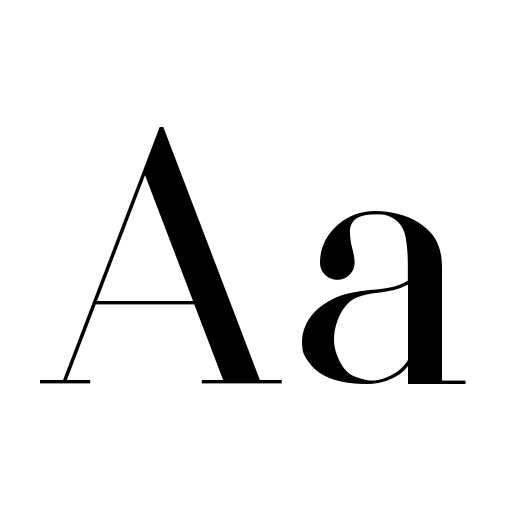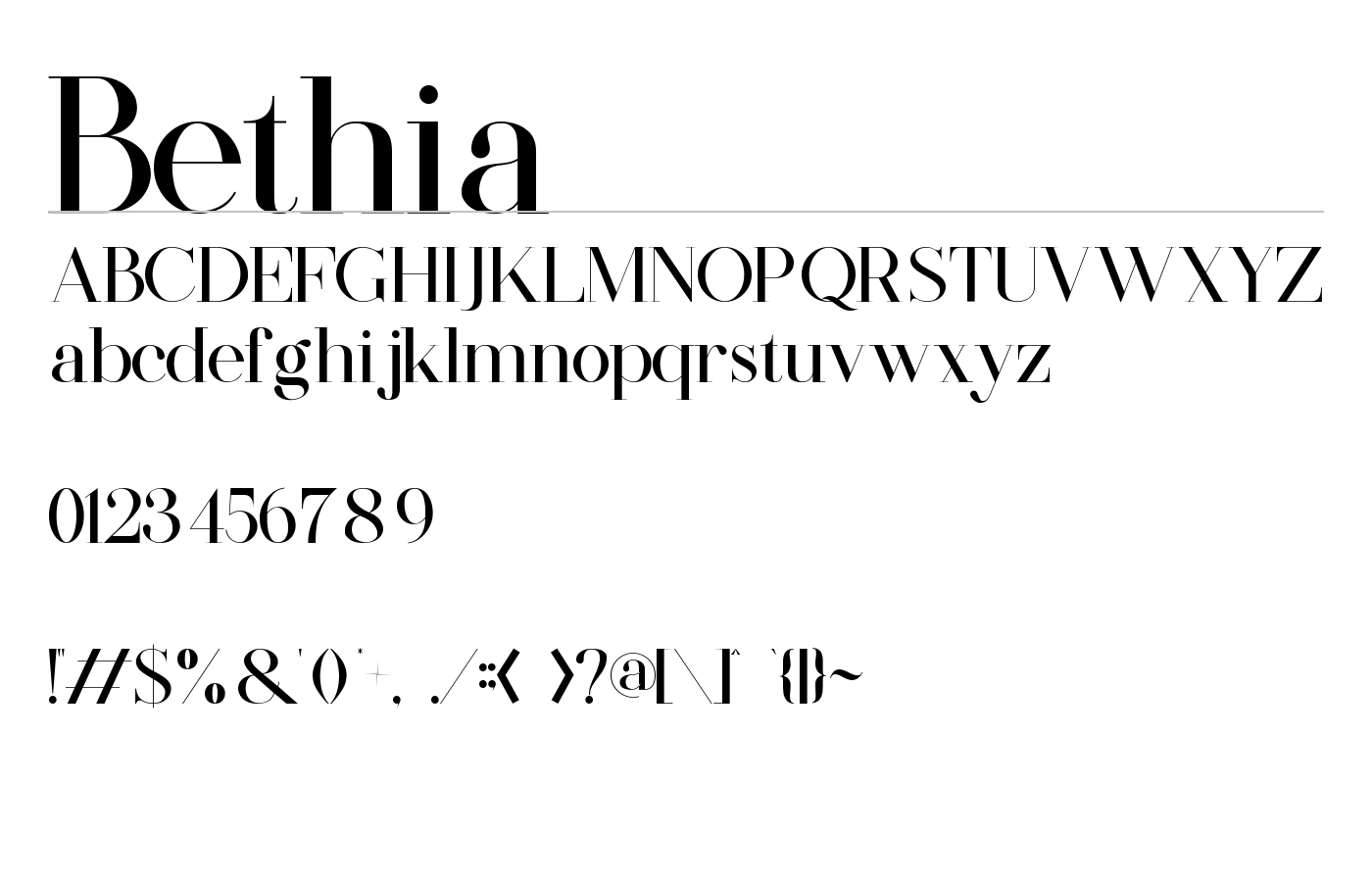
Bethia is an elegant serif font characterized by high contrast between thick and thin strokes, paired with delicate bracketed serifs that give it a refined and sophisticated look. Its tall x-height and stylish letterforms make it perfect for luxury branding, editorial headlines, and fashion-related designs where a modern yet classic touch is desired. This font’s graceful presence enhances upscale projects by combining readability with artistic flair.
Bethia Font
About Bethia Font
| Font family | Bethia Font |
| Designer | SlideShoot2023 |